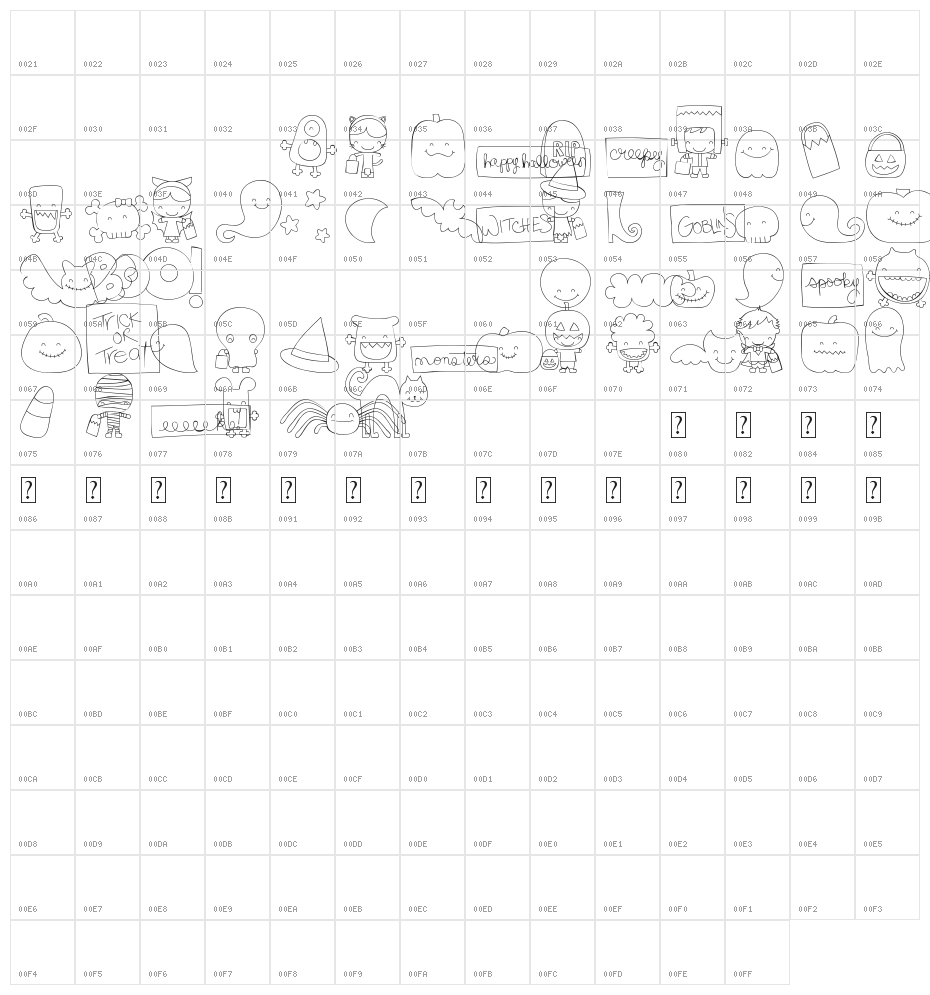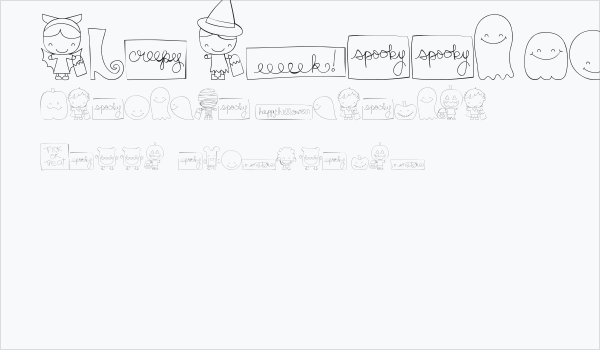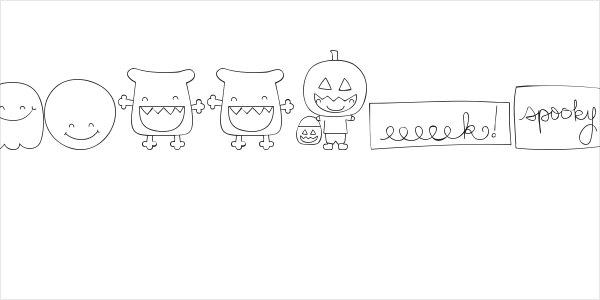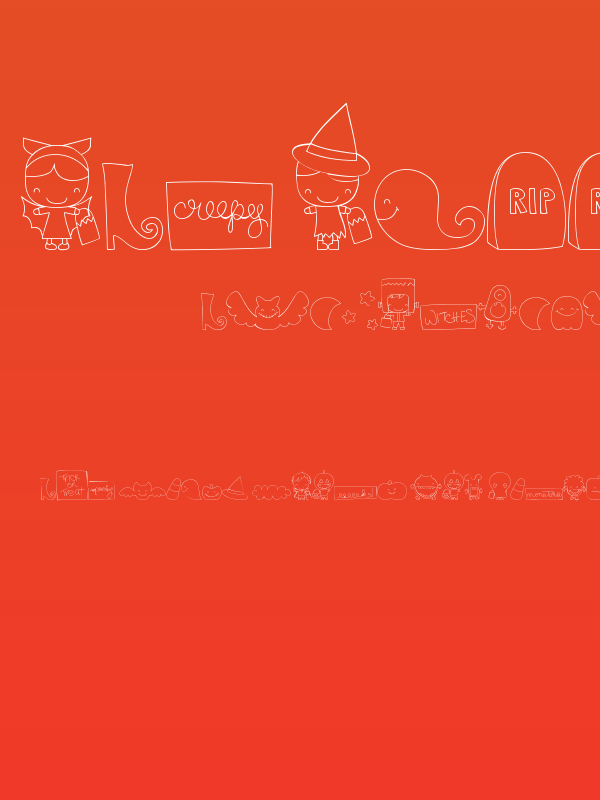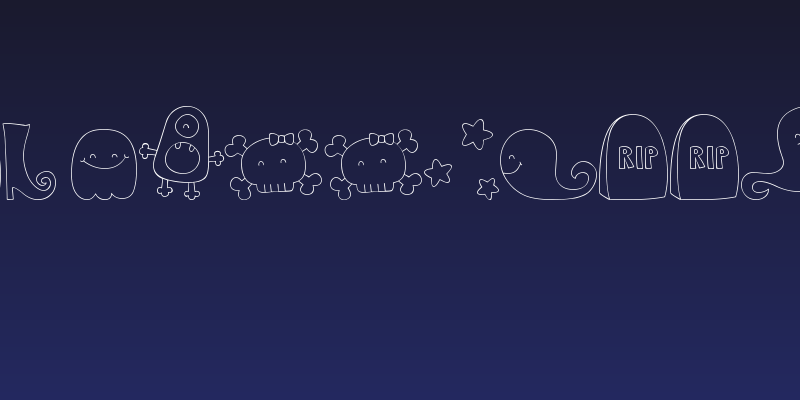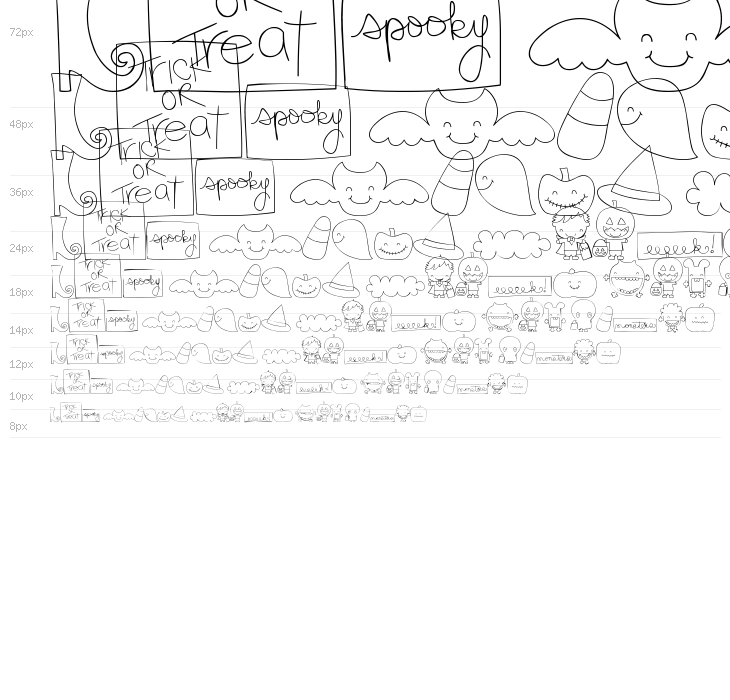
MTF Sweet Halloween Dings Font
MTF Sweet Halloween Dings Description
This whimsical and playful dingbat font is perfect for Halloween-themed projects. It features a variety of cute and spooky illustrations, including pumpkins, ghosts, bats, and other Halloween icons. Each character is a unique doodle, capturing the essence of a fun and festive Halloween. The line art style is simple yet charming, making it suitable for both children and adults. The illustrations are consistent in style, offering a cohesive look across different designs. This font is ideal for adding a touch of Halloween spirit to any project.
| Use Case | Logos, Headlines, Decorative elements |
| Proposed Projects | Ideal for Halloween party invitations, decorations, greeting cards, and themed crafts. |